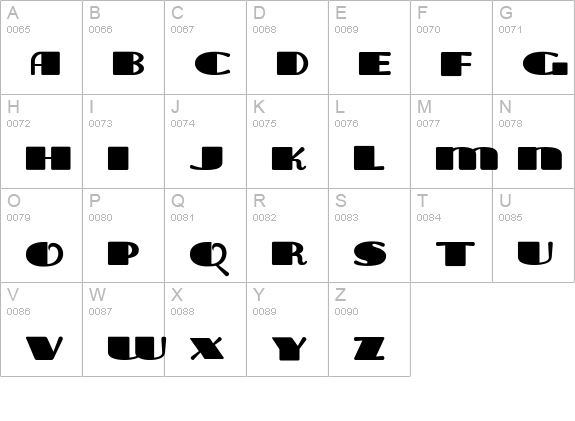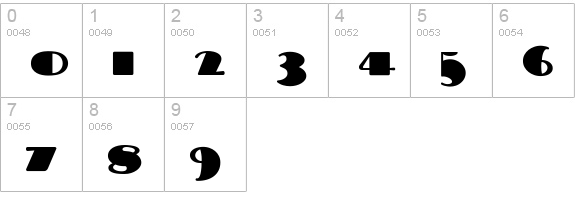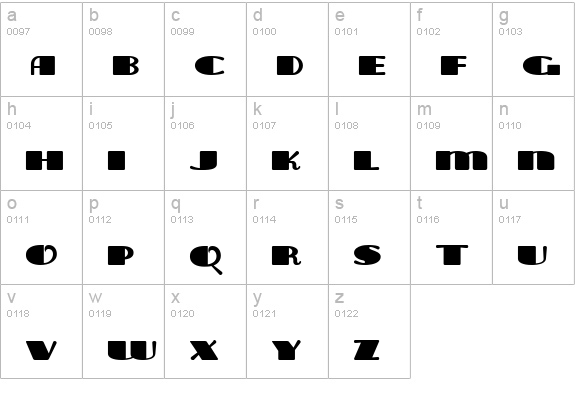
Tara Bulbous NF Font Details
Tara Bulbous NF font is a unique and eye-catching typeface that features playful and rounded letterforms. With its bulbous shapes and quirky design, this font is perfect for adding a fun and friendly touch to your projects. Whether you're working on a poster, logo, or greeting card, Tara Bulbous NF will bring a cheerful and whimsical vibe to your designs. The best part is that Tara Bulbous NF font is available for free download at FontsMarket.com. You can easily access this delightful font and use it in your personal and commercial projects without any restrictions. Don't miss out on the opportunity to add a touch of charm to your designs with Tara Bulbous NF font. Download it today and let your creativity shine!